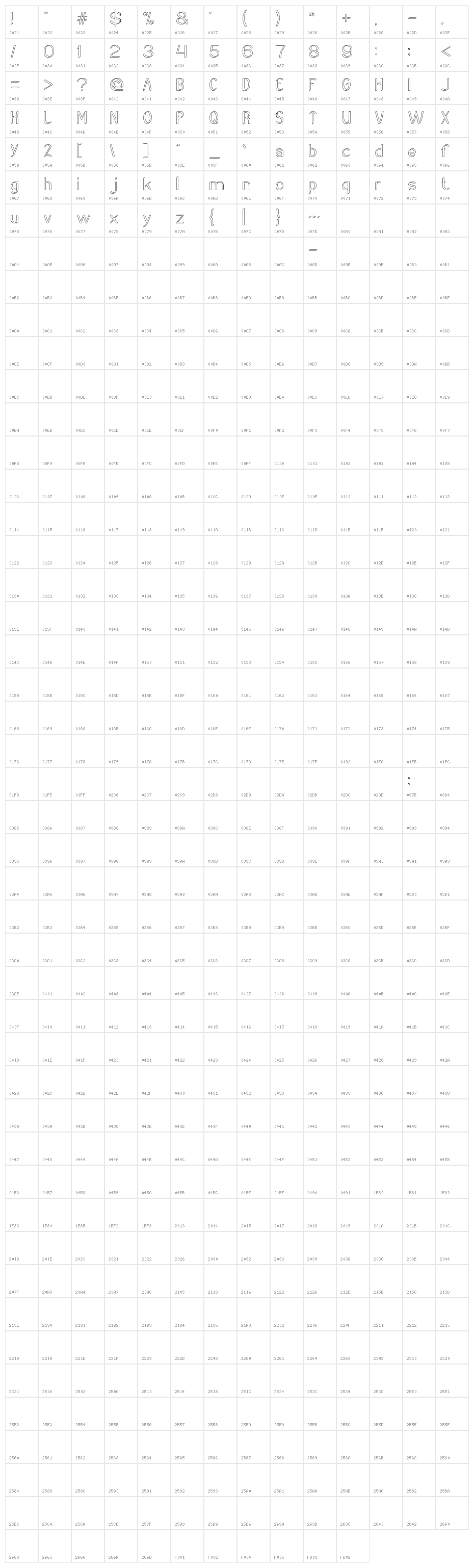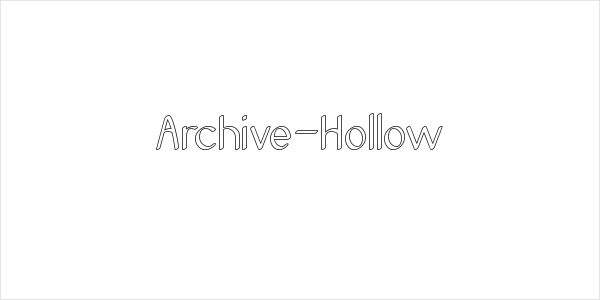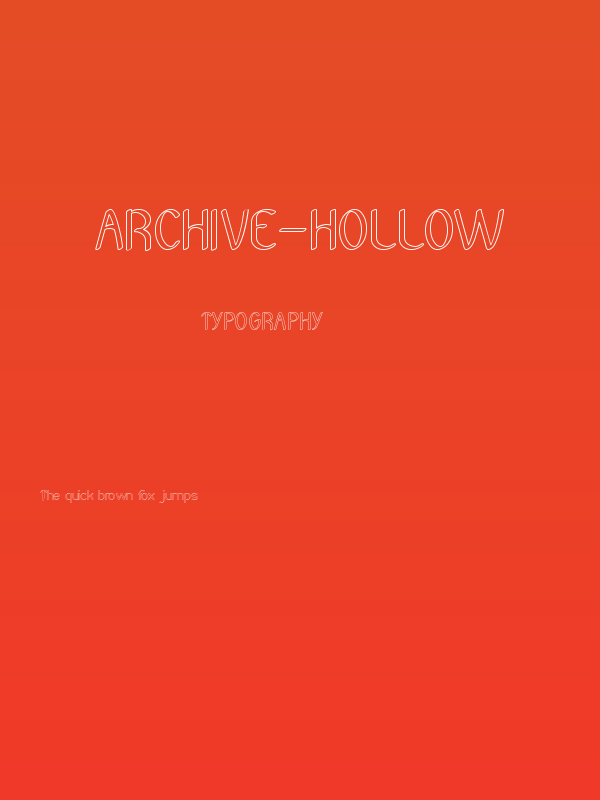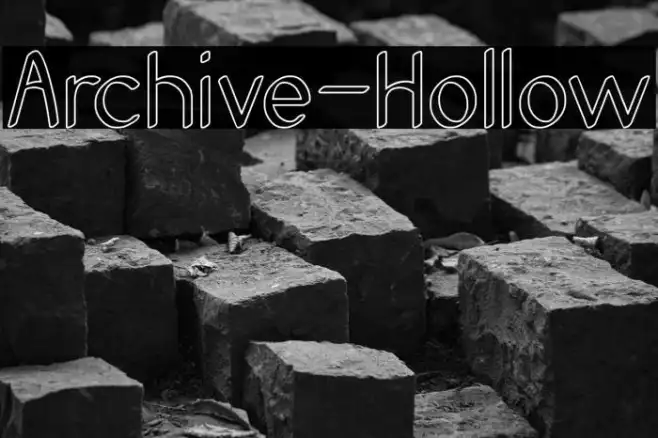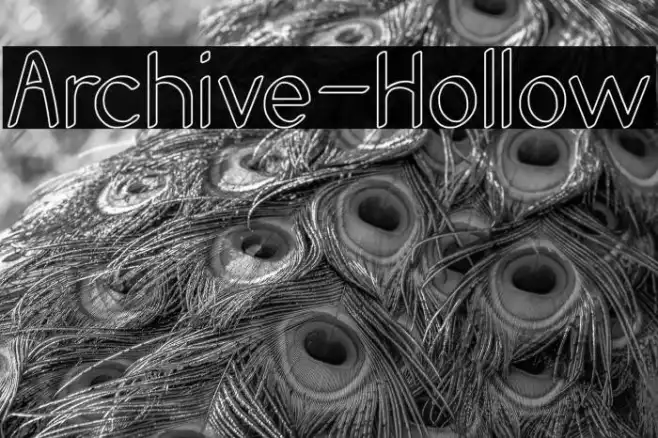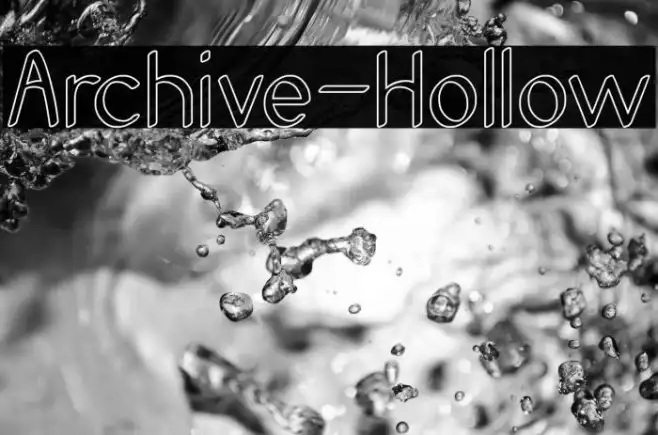
Archive-Hollow Font
Archive-Hollow Description
This font features a unique hollow design, where each character is outlined with a consistent stroke, creating an airy and open appearance. The uppercase and lowercase letters maintain a uniform style, with rounded edges and a modern aesthetic. The numerals and special characters follow the same design principles, ensuring cohesion across all elements. The font's open structure makes it highly legible, even at smaller sizes, while the hollow aspect adds a distinctive flair that sets it apart from traditional solid fonts. Its geometric shapes and clean lines contribute to a contemporary and stylish look, making it suitable for a variety of design applications.
| Proposed Projects | Ideal for branding, posters, headlines, and digital media where a modern and distinctive look is desired. |